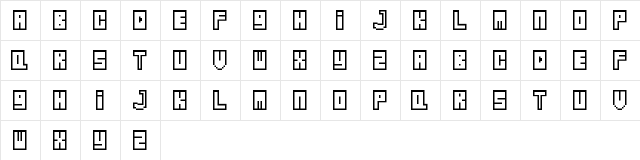
Zipper Regular
Design Context for Zipper Typeface
Zipper is a composed and adaptable typeface that performs quietly and consistently across a wide range of design contexts.